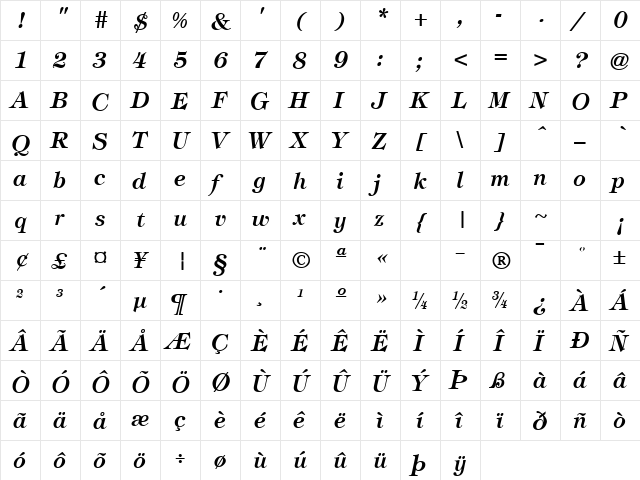
GE Timpani Bold Italic
Design Context for GE Timpani Typeface
GE Timpani offers clean, dependable letterforms without strong stylistic allegiance, making it a practical choice for designers who need flexibility. The dynamic lean of this cut emphasises speed and emphasis in any layout. The heavy weight commands attention and anchors typographic hierarchies.
Pro Tip: Use GE Timpani for emphasis, pull quotes, and subheadings where its slanted energy can add rhythm to the layout.